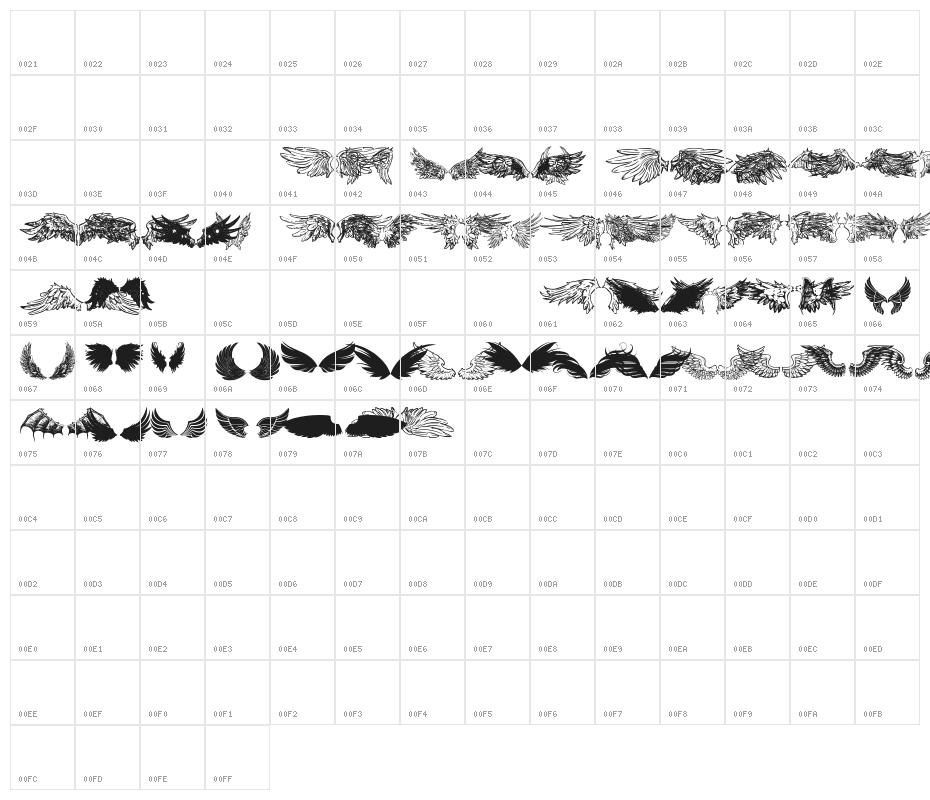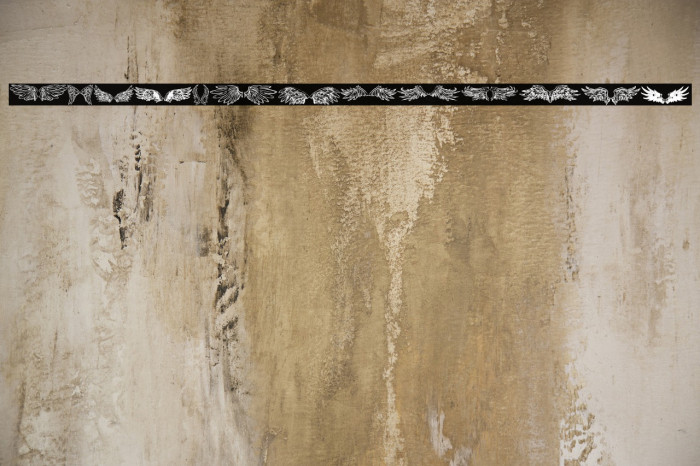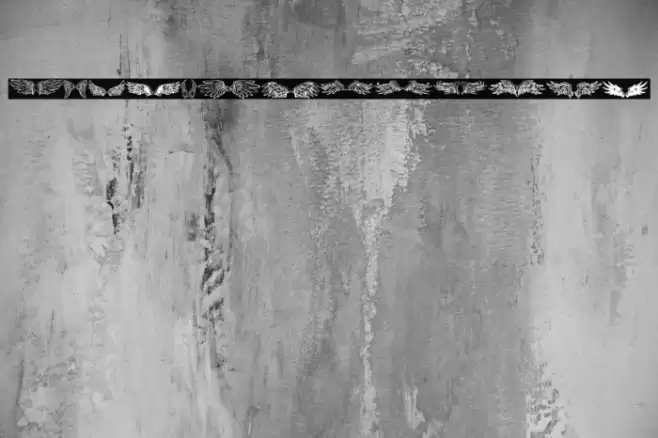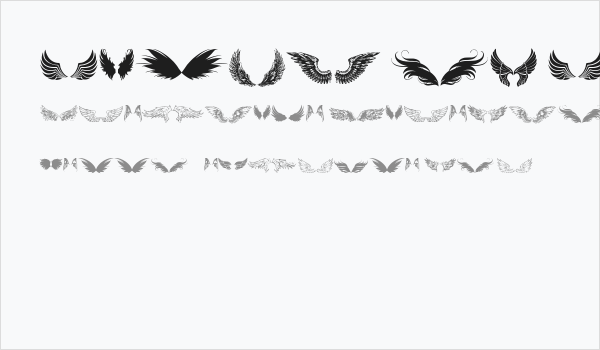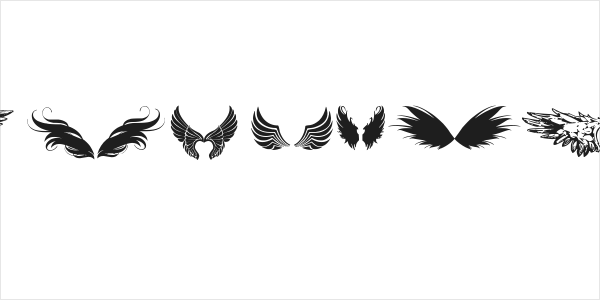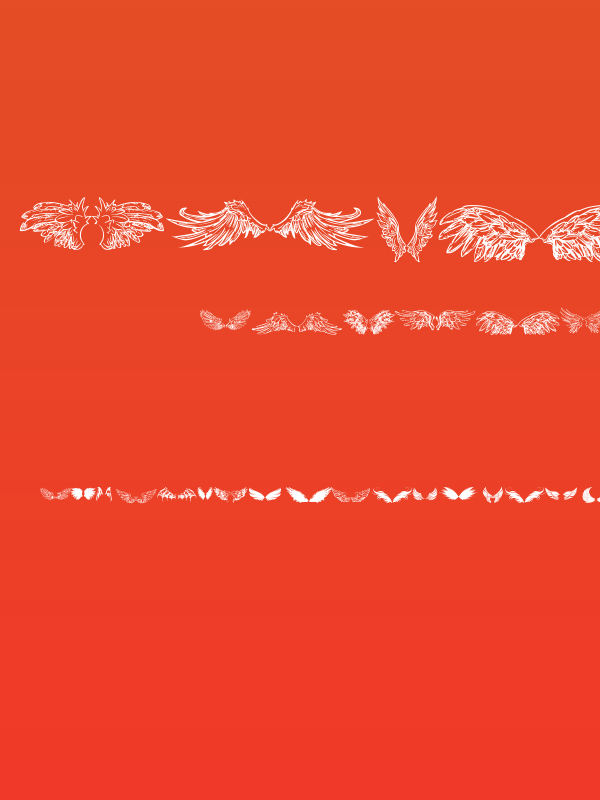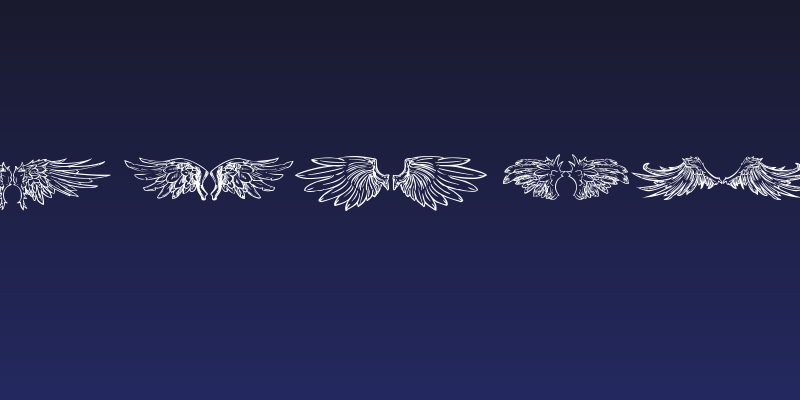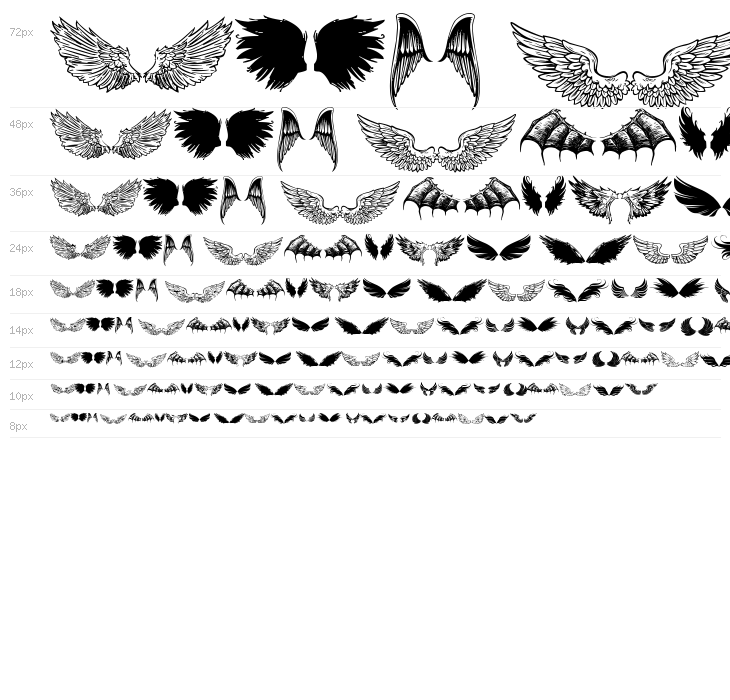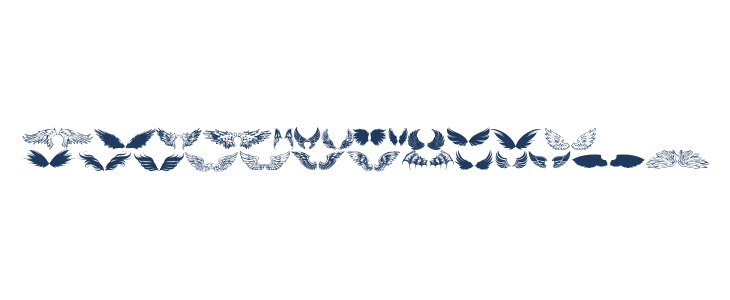
wings of wind tfb Font
wings of wind tfb Description
This collection features a series of intricate wing designs, each with unique detailing and style. The designs range from delicate, feathered wings to bold, solid silhouettes, offering a diverse array of visual options. These elements are highly decorative, making them ideal for creative projects that require a touch of elegance or fantasy. The wings vary in complexity, with some showcasing detailed line work and others presenting a more minimalist approach. This variety allows for versatile applications, whether in digital design, print media, or artistic compositions. The overall aesthetic is both whimsical and sophisticated, appealing to those looking to add a dynamic and ethereal element to their work.
| Use Case | Logos, Illustrations, Decorative Art |
| Proposed Projects | Ideal for fantasy-themed designs, book covers, tattoo art, digital illustrations, and decorative prints. |